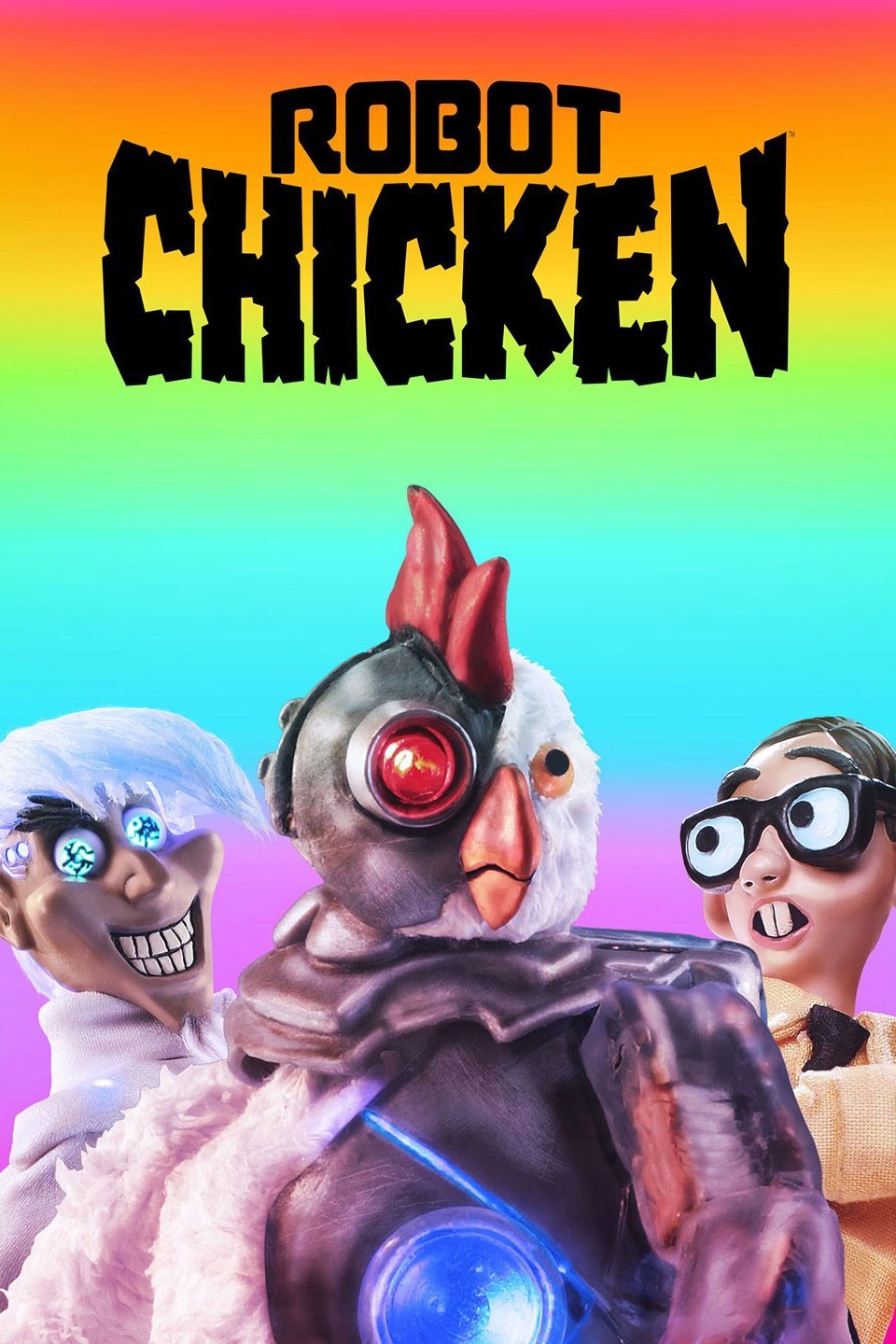
Robot Chicken Font
AnimationRobot Chicken is an American stop-motion animated television series created by Seth Green and Matthew Senreich. It debuted on Adult Swim in 2005 and parodies popular culture through the use of stop-motion animation.
The TV show title uses "Cyborg Rooster Regular", a techno, science-fiction font designed by Iconian Fonts, for the word "Robot". For the word "Chicken", the font "Clubber Lang Expanded" is used, which is also from Iconian Fonts. Both fonts are free for personal use and can be downloaded from the Fonts Used Section.